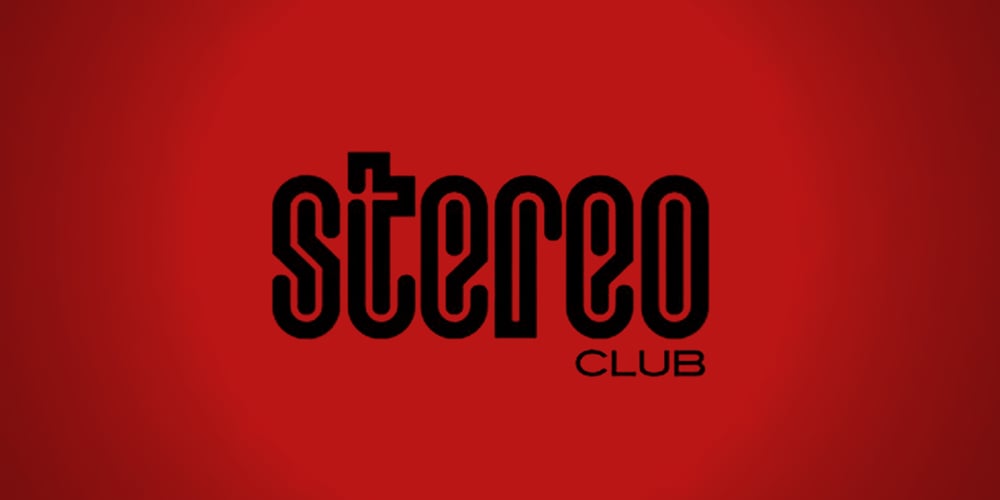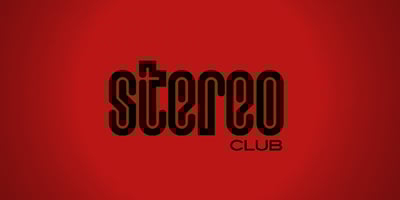
Lusta
Lusta font
Lusta Font Family was designed by Rian Hughes and published by Device. Lusta contains 7 styles and family package options. Lusta plays with the interchangeability of an inline and an outline, negative and positive space. Often one single character will epitomise the design of a font, and here the S served as the conceptual starting point. The inline/outline was then applied to sans and serif variants, and extended into a multi-line prisma and an offset layered shadow version, probably inspired by Face Photosetting’s Stack.